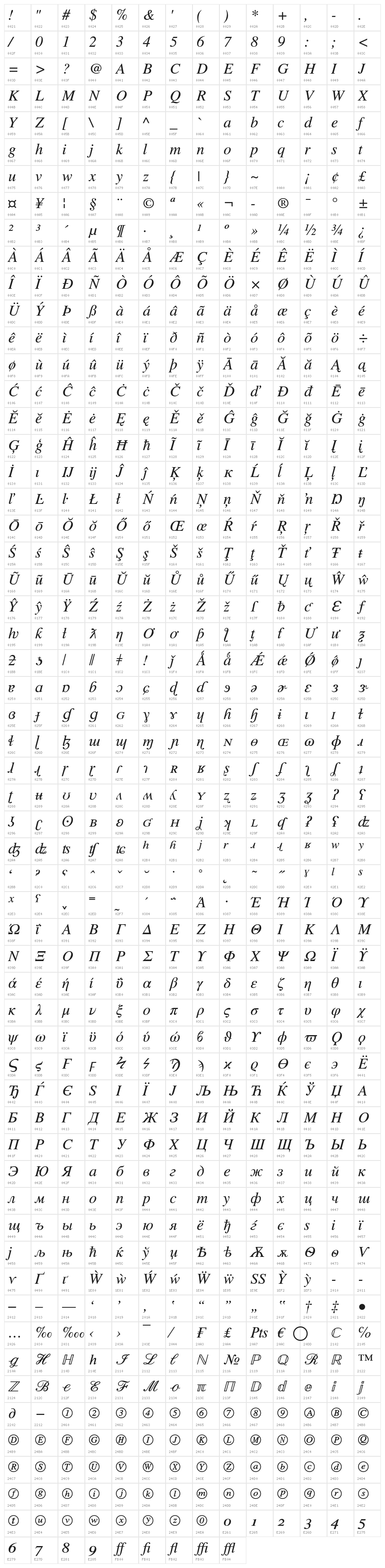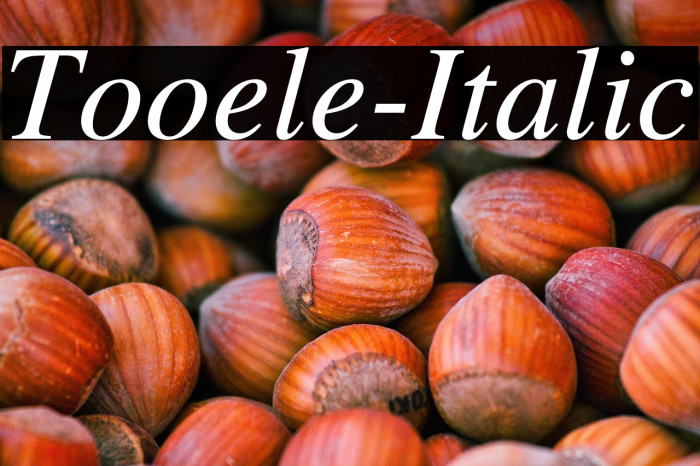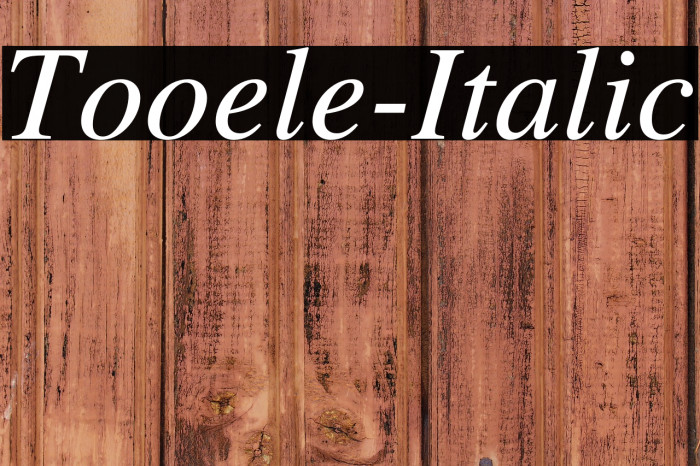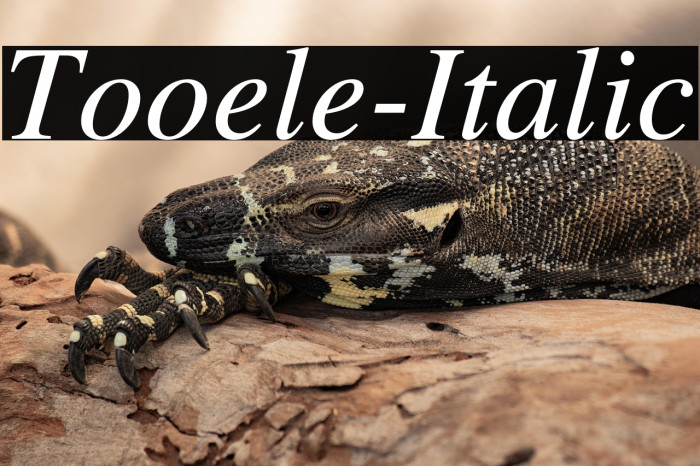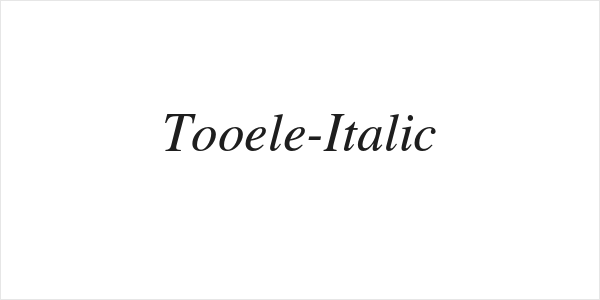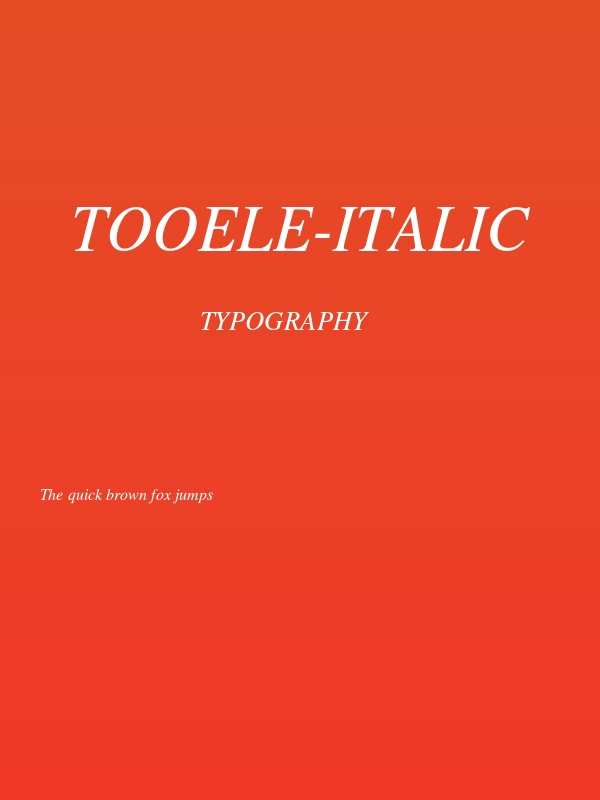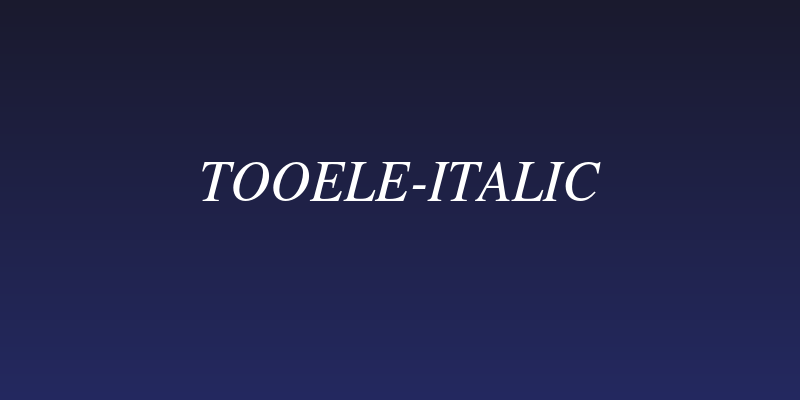
Tooele-Italic Font
Tooele-Italic Description
This font features a sleek and modern italic style, characterized by its smooth curves and elegant slant. The letters are well-proportioned, with a consistent flow that enhances readability while maintaining a stylish appearance. The uppercase and lowercase letters complement each other, creating a harmonious look. The numerals are clear and distinct, making them suitable for various applications. Special characters are thoughtfully designed, adding versatility to the font's usage. Overall, this font exudes a contemporary feel, making it ideal for projects that require a touch of sophistication.
Classic Roman Typeface
| Proposed Projects | Ideal for branding, editorial design, fashion magazines, and elegant invitations. |
Classic Roman Typeface